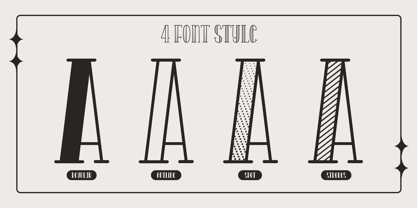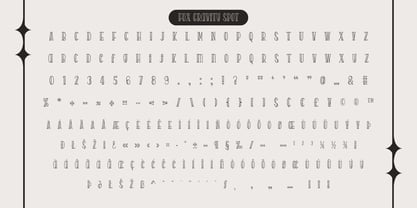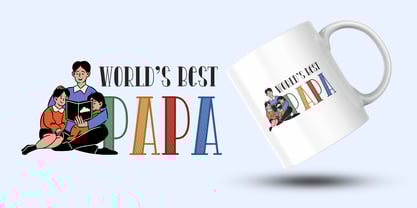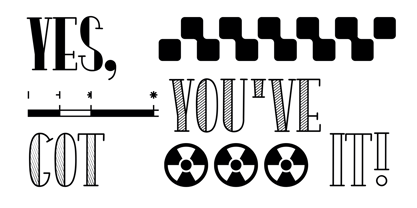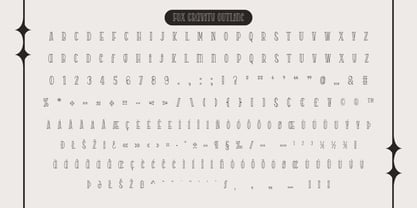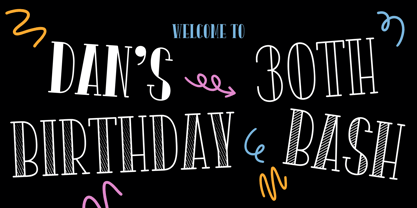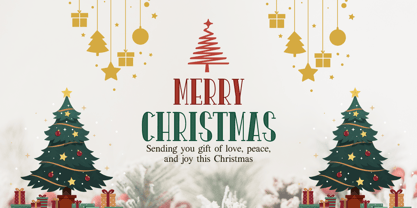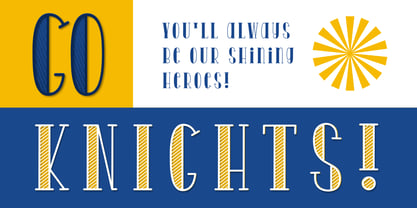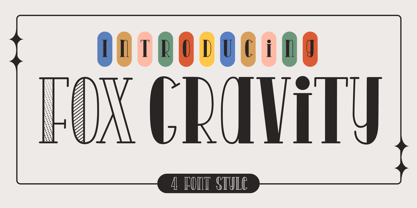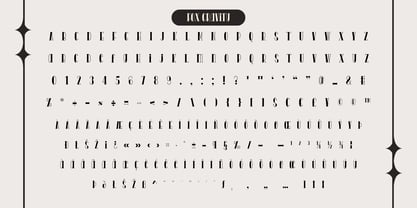
Fox Gravity
Fox Gravity is a stylish and versatile display font inspired by vintage typography. with a modern twist. Designed with elegance and boldness in mind, this typeface offers four unique styles to enhance your creative projects:
🔹 Regular – A strong and solid version, perfect for eye-catching headlines.
🔹 Outline – A clean and structured outline style for a refined touch.
🔹 Spot – A creative dotted texture, adding a playful retro feel.
🔹 Strokes – A lined pattern style, giving a handcrafted vintage effect.
Ideal for branding, posters, packaging, logotypes, and editorial designs, Fox Gravity brings a timeless and artistic charm to any project. Its combination of thick strokes and delicate details creates a striking balance that stands out in both print and digital media.